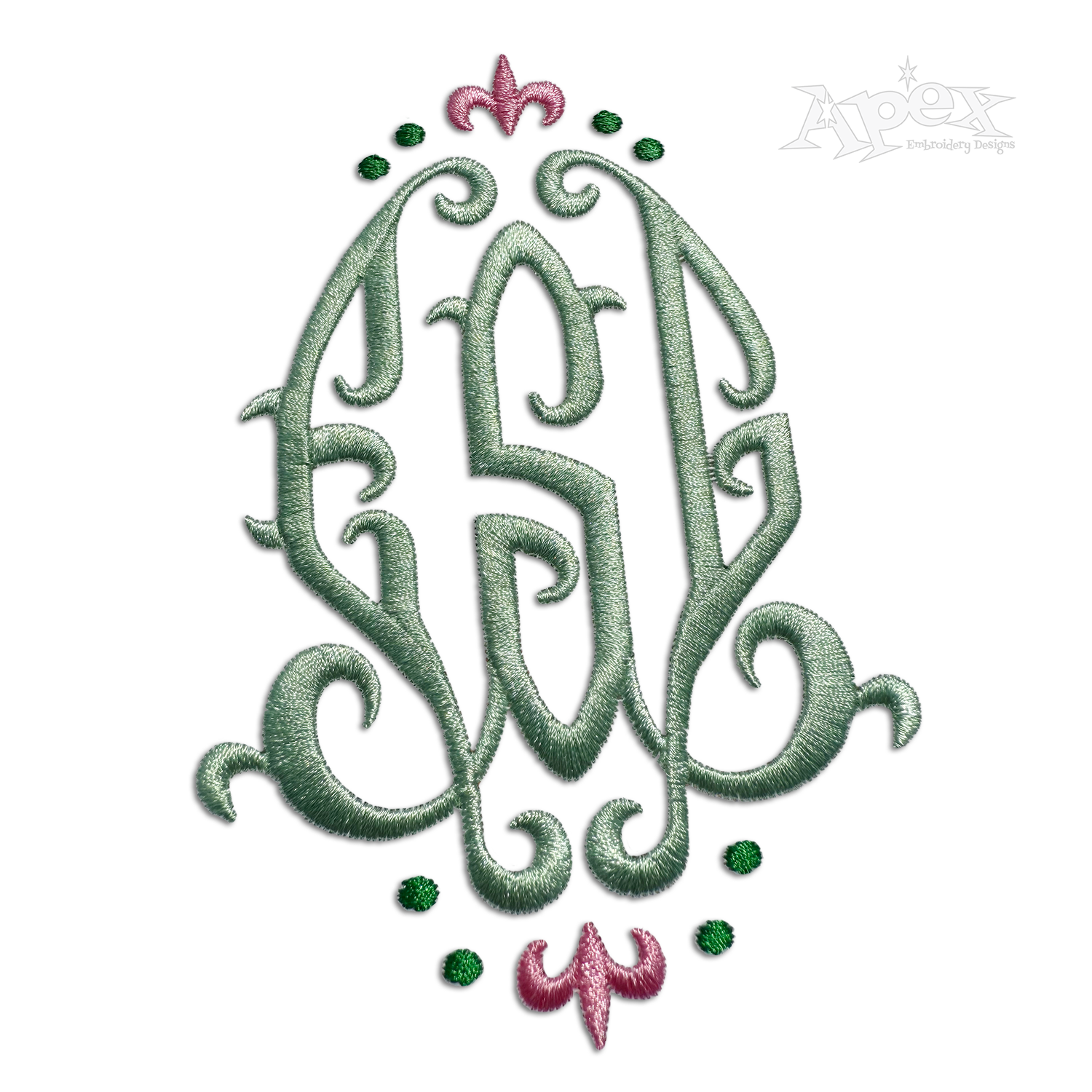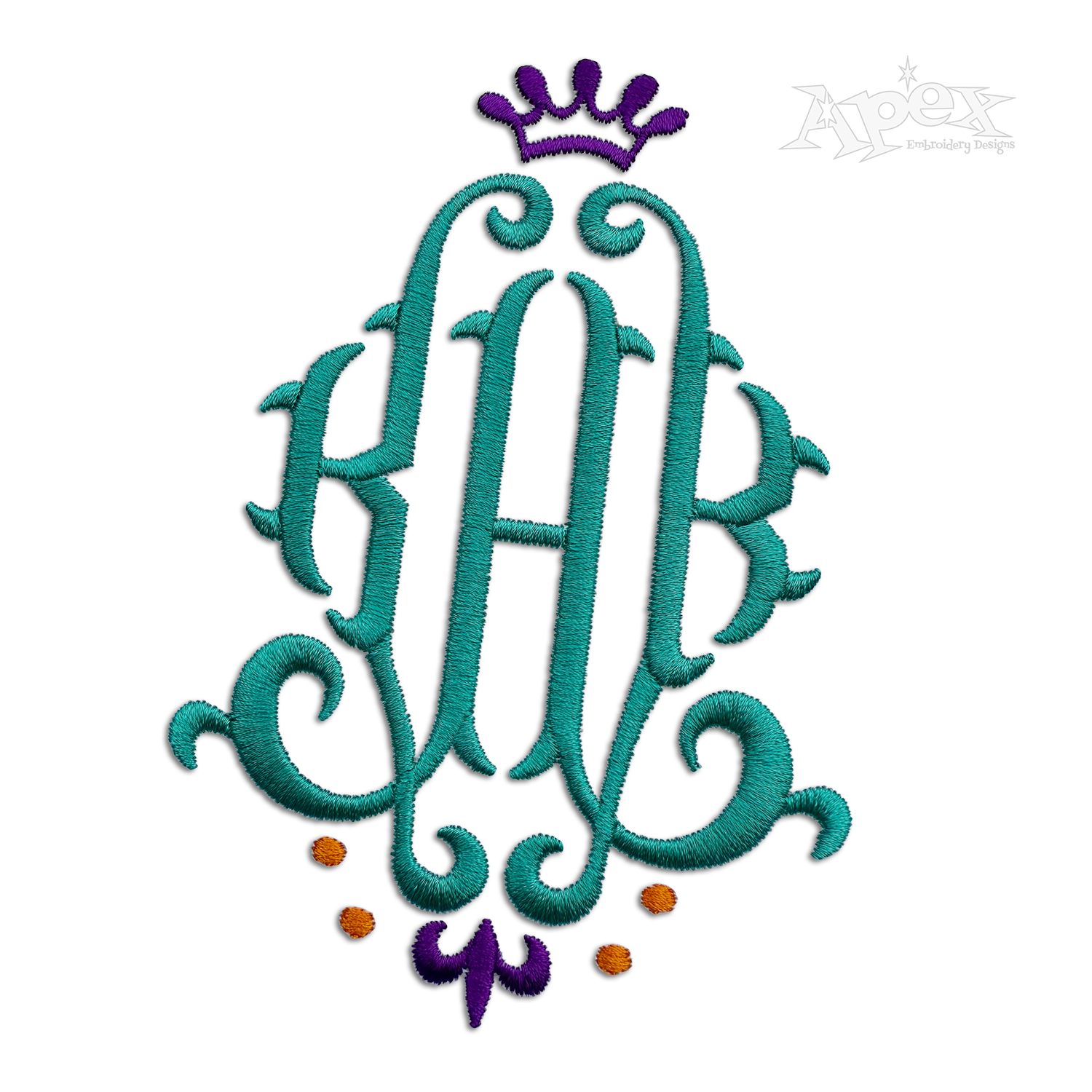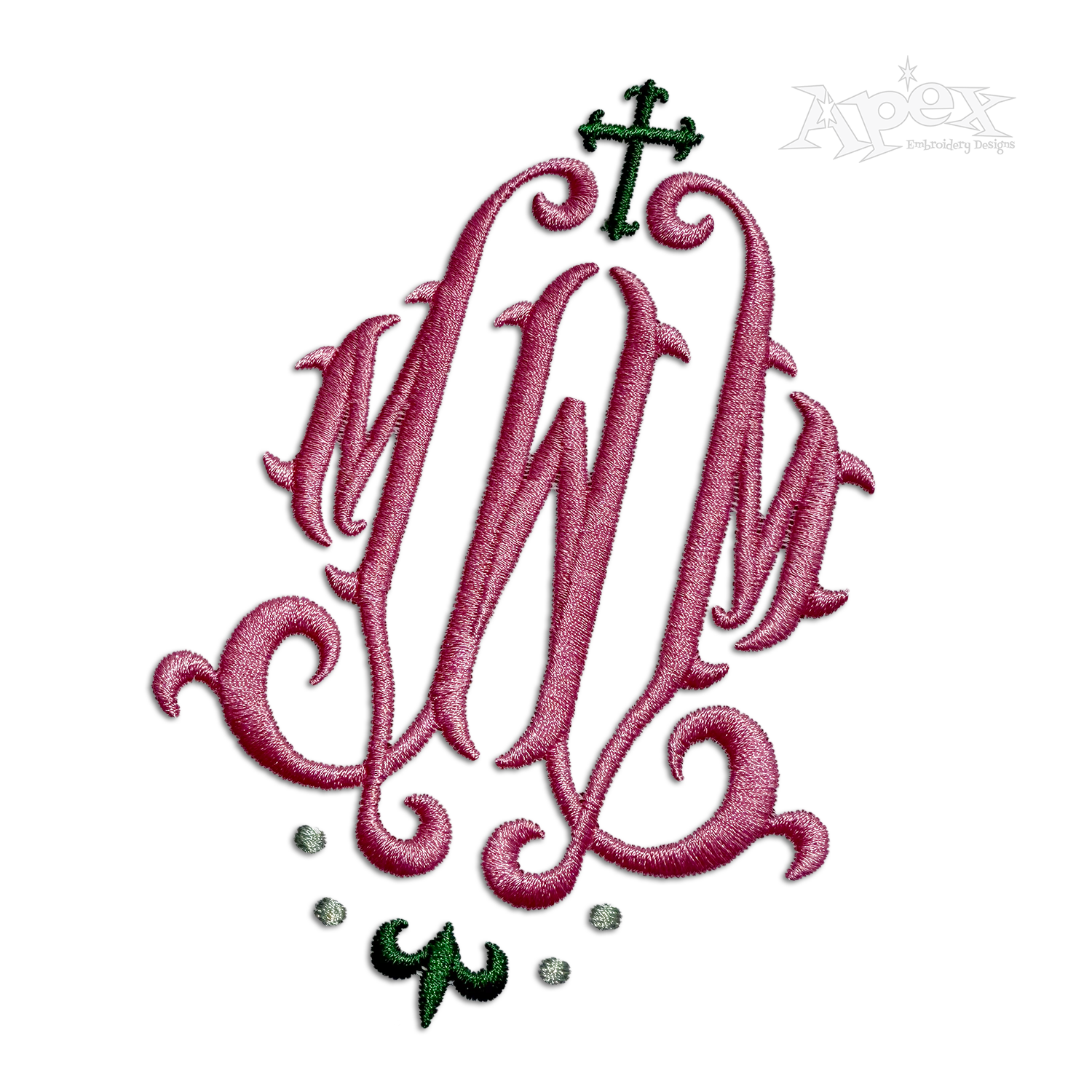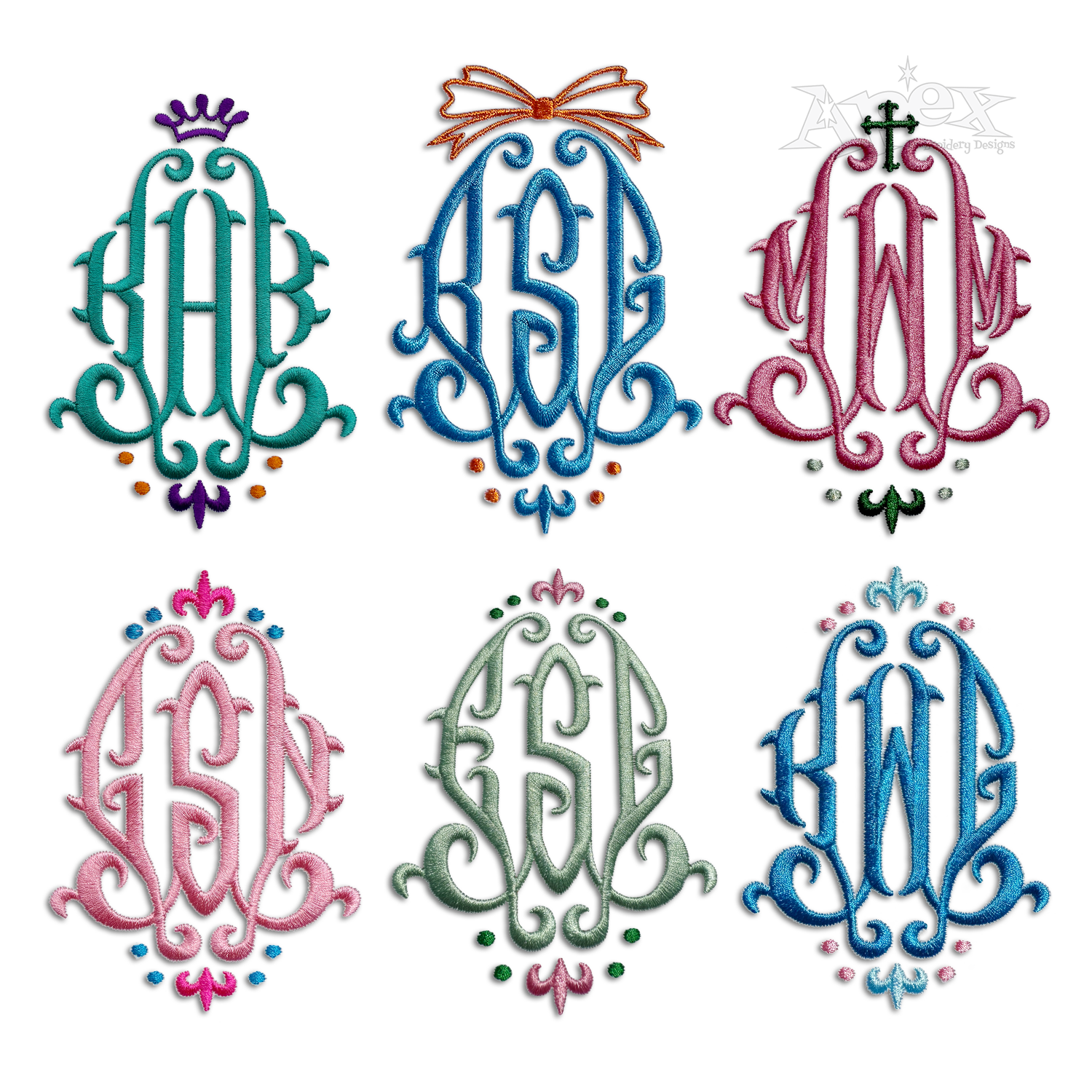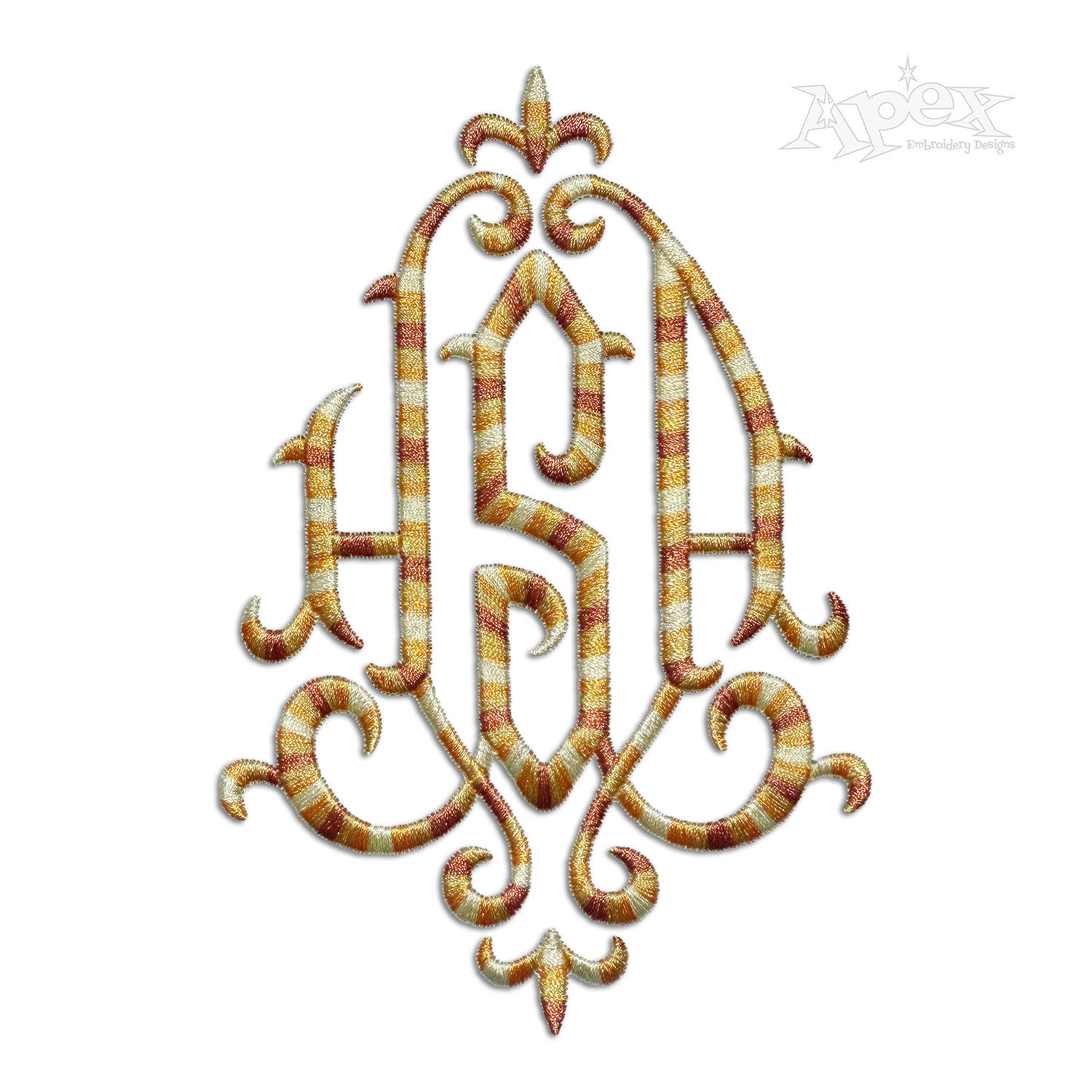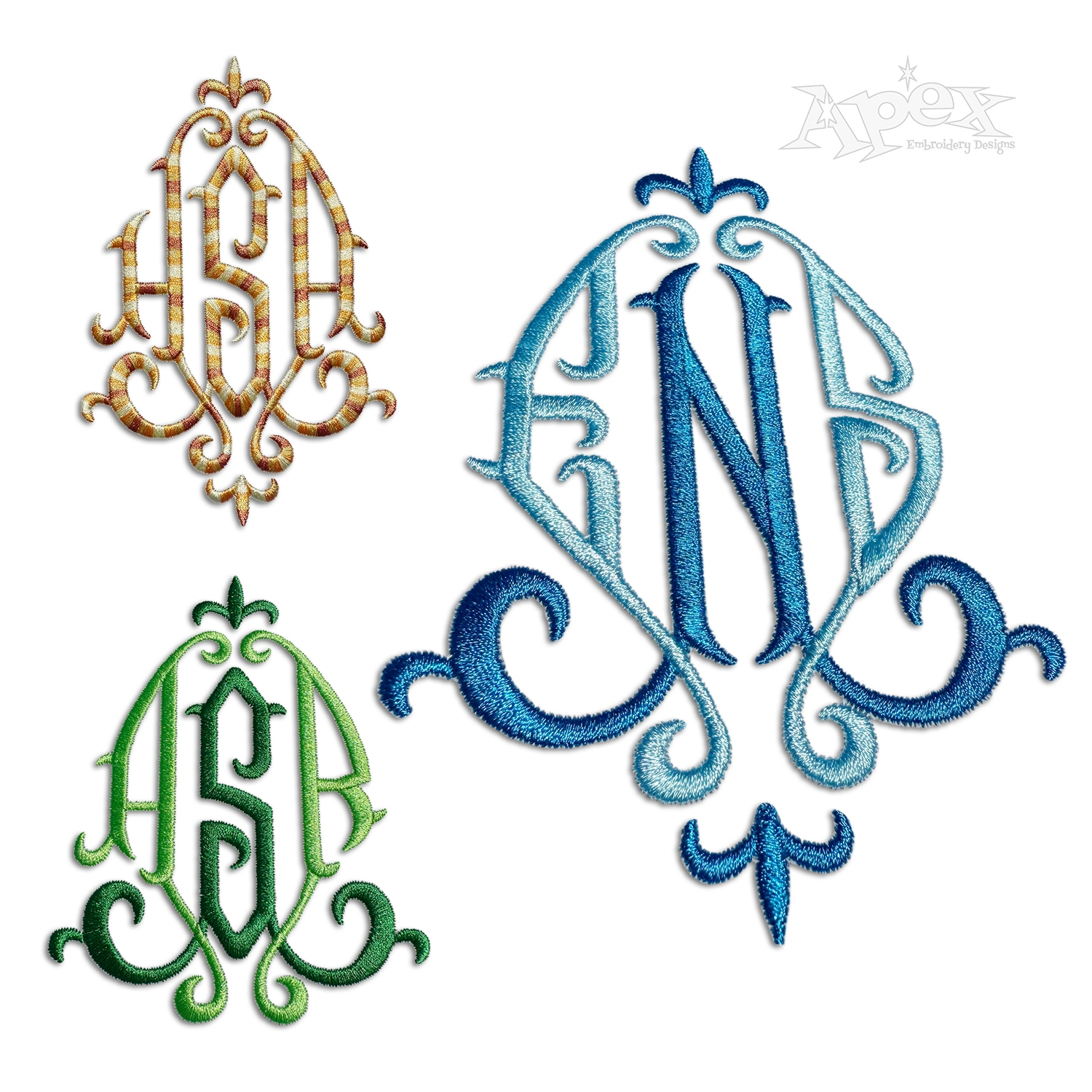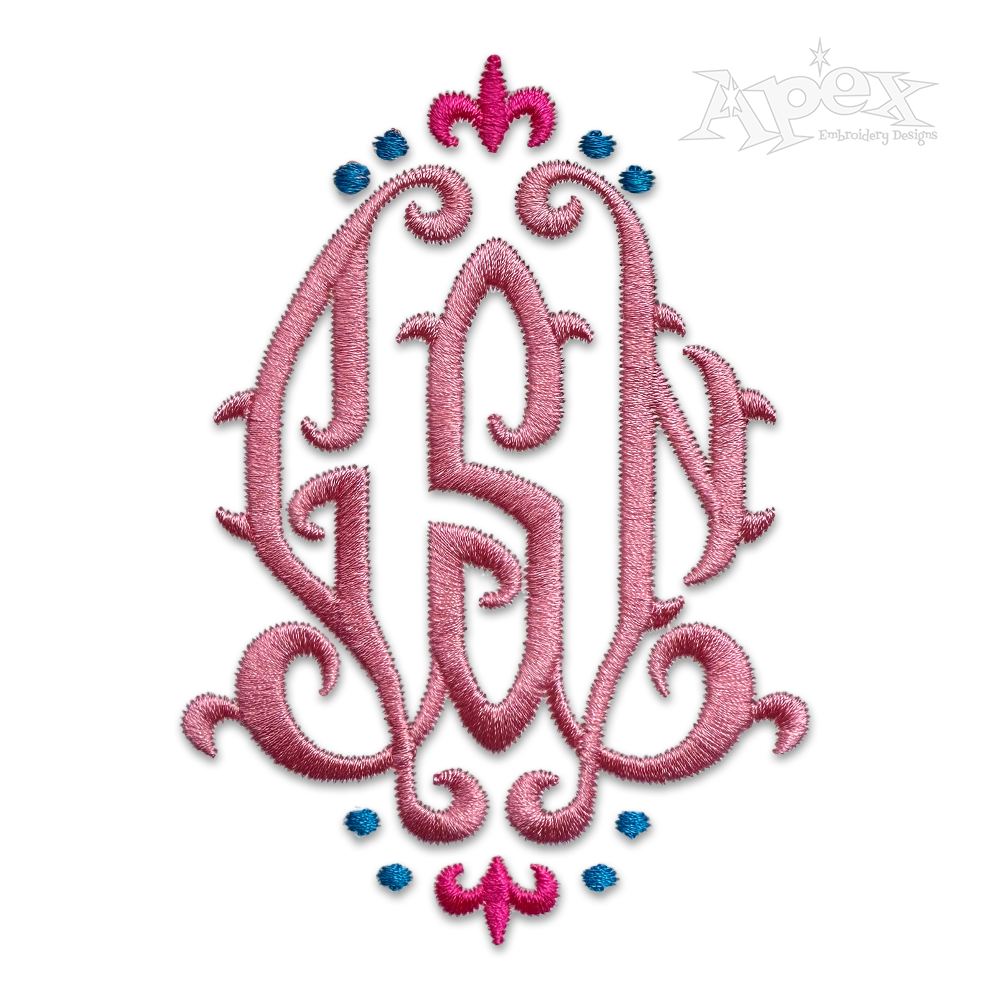
Royal Fleur Monogram Embroidery Font
Create Royal Fleur style personalized gifts and home décor with Royal Fleur Louisa. European old world Chic Monogram Embroidery Font Bundle. Featuring a classic with Europe Chic embroidery monogram set is perfect for customizing hats, linens, towels, baby gifts, tote bags, and more.
This premium Royal Fleur Louisa embroidery font collection includes complete size sets with uppercase monogram letters designed for creating stunning 3-letter monograms. Each font comes professionally digitized for smooth stitching and excellent embroidery results. Apex has digitized machine embroidery fonts for over 25 years.
- Perfect for 3-Letter Monograms